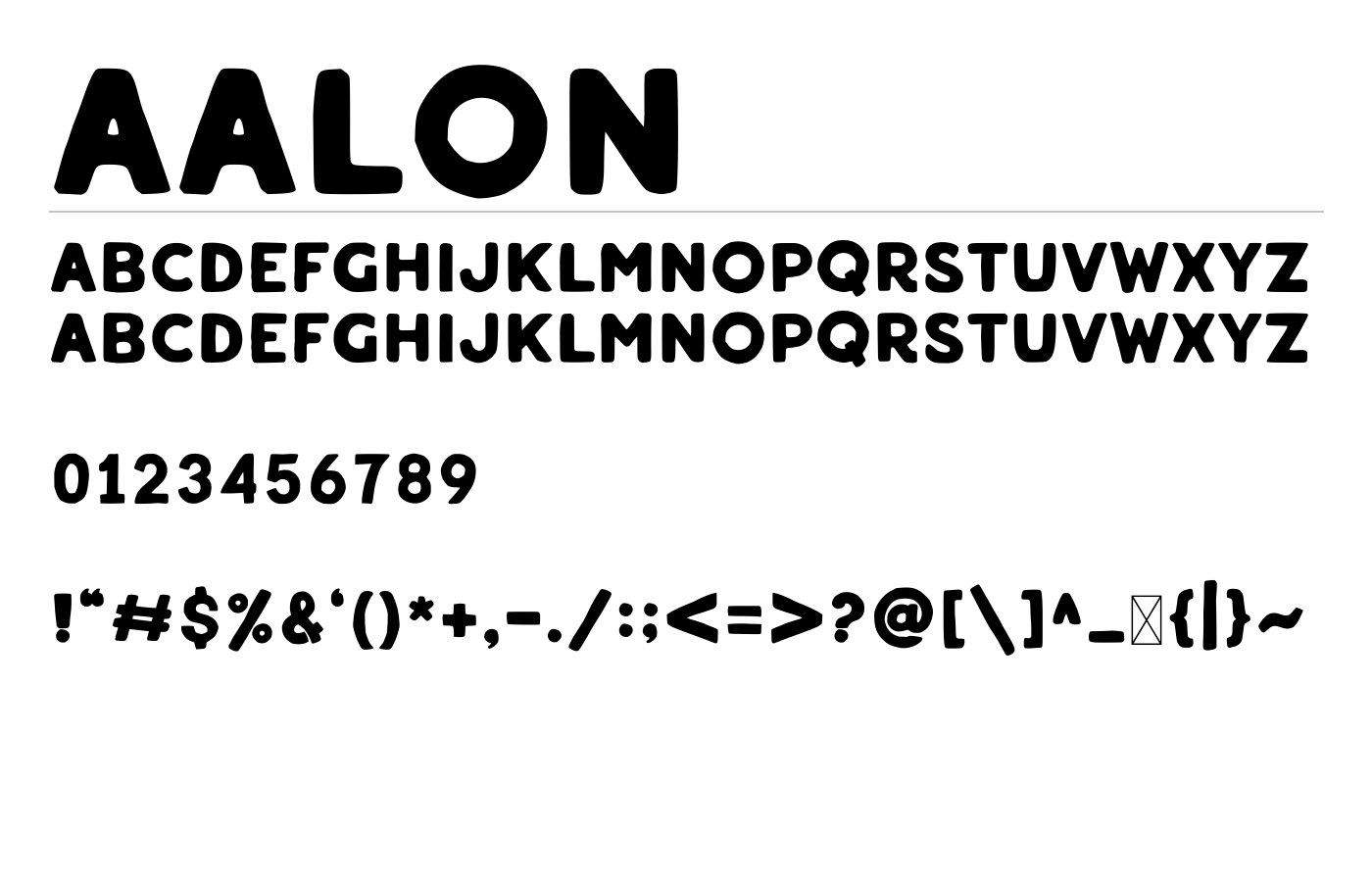
Aalon is a bold, rounded sans serif font with a playful and friendly character, featuring soft, irregular strokes that give it a hand-crafted feel. Its high x-height and lively letterforms make it highly readable while conveying a casual, approachable vibe, perfect for children’s books, informal branding, and creative projects. This font works best for headlines and logos where a warm, inviting style is desired.
Aalon Font
About Aalon Font